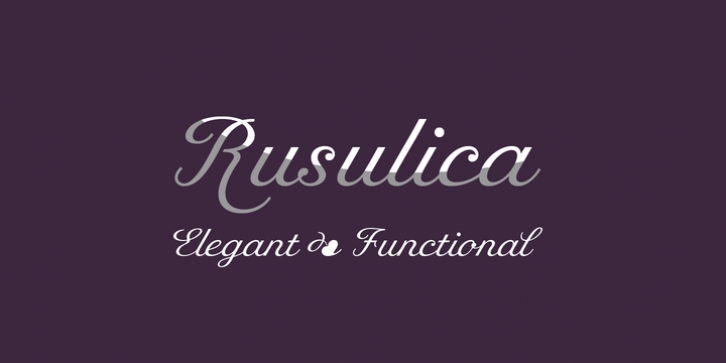
Rusulica Script is elegant, stable and very practical. It is carefully drawn to indicate writing logic while serving modern ideas and needs. Because of it’s decorative and playful design it offers plenty of possibilities as a stand alone display font or as a compliment to any text typeface.
Rusulica Script contains 490 glyphs with special attention payed to the letters with diacritical marks. It works best with OpenType-friendly applications.